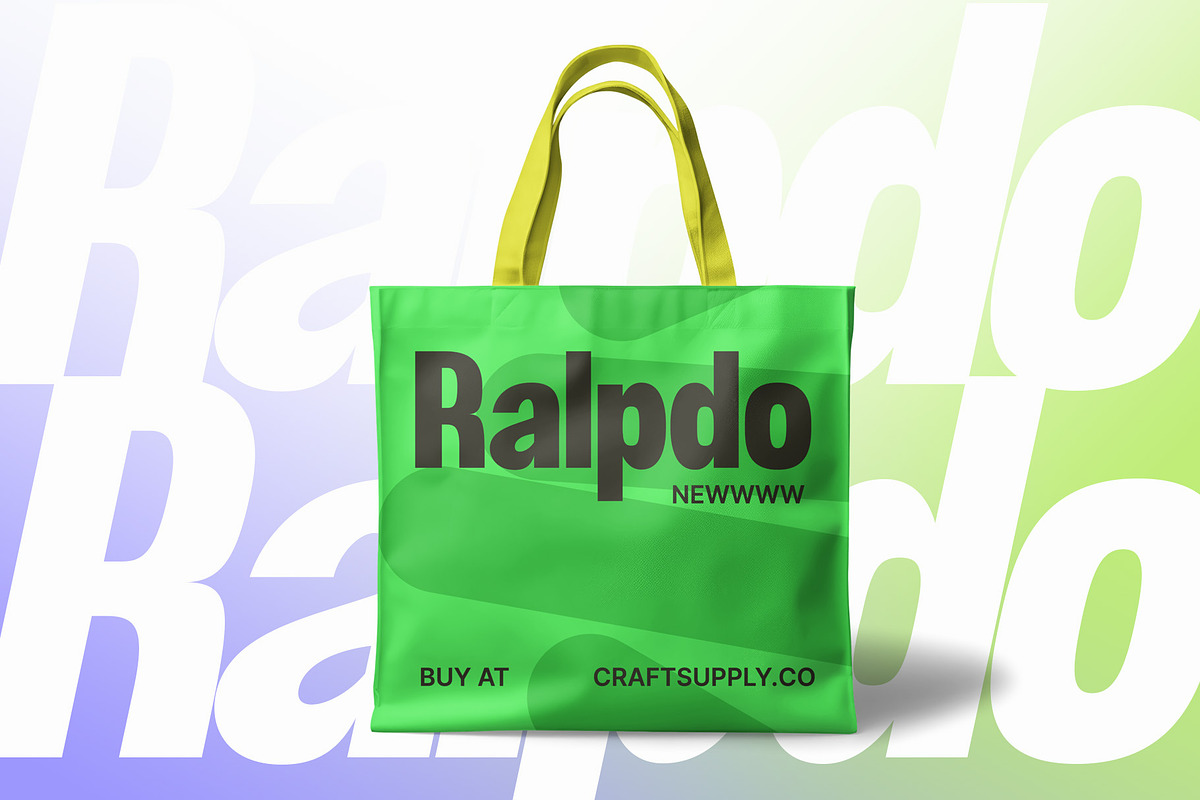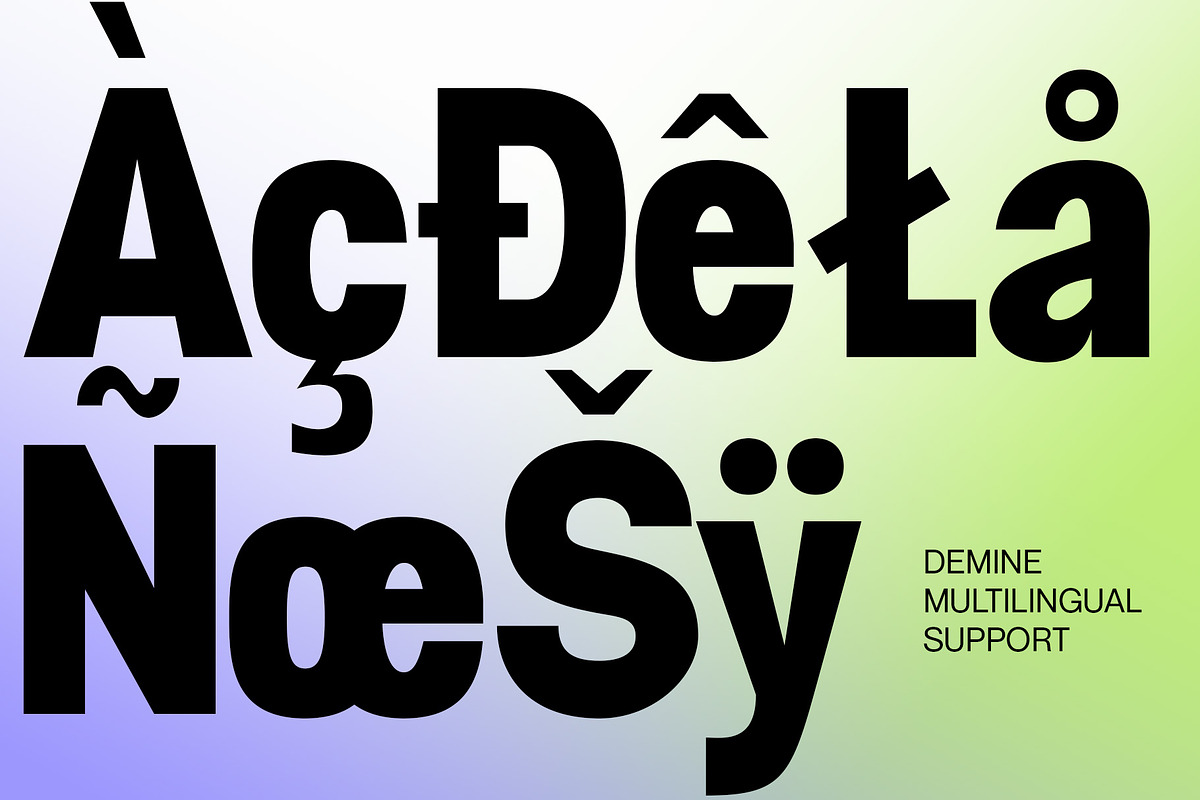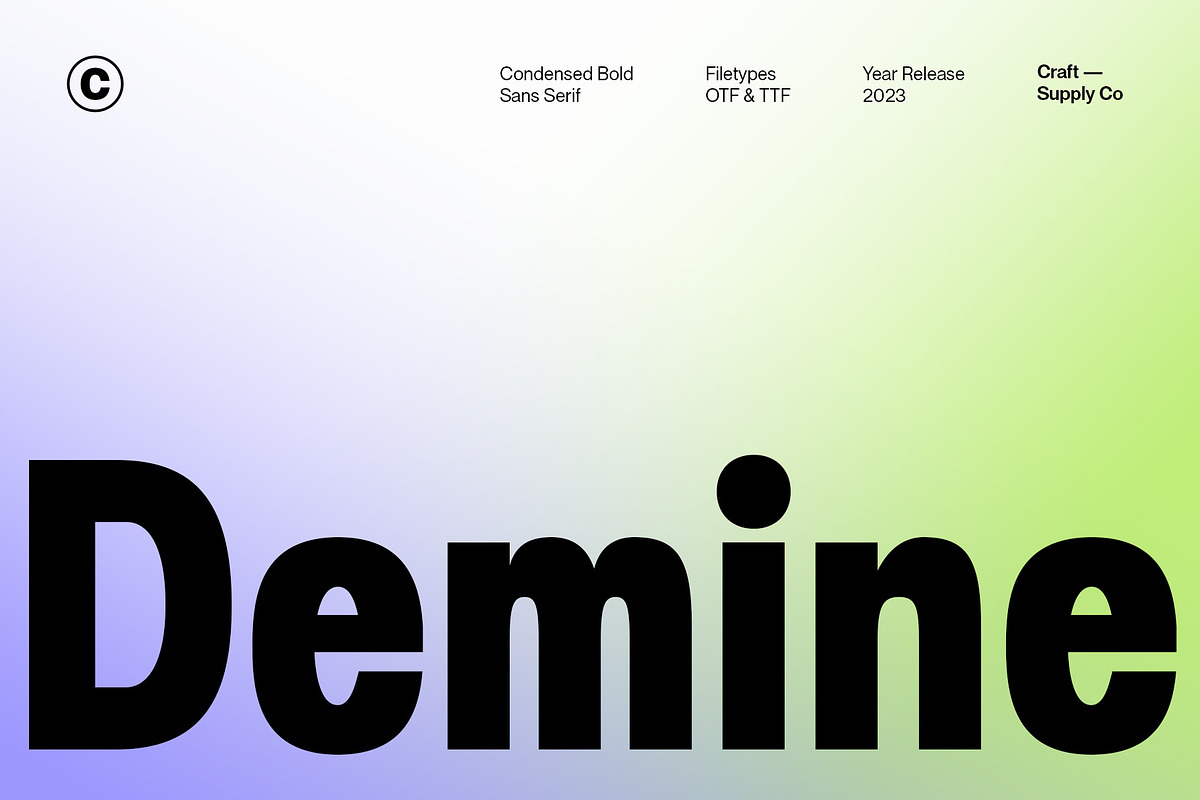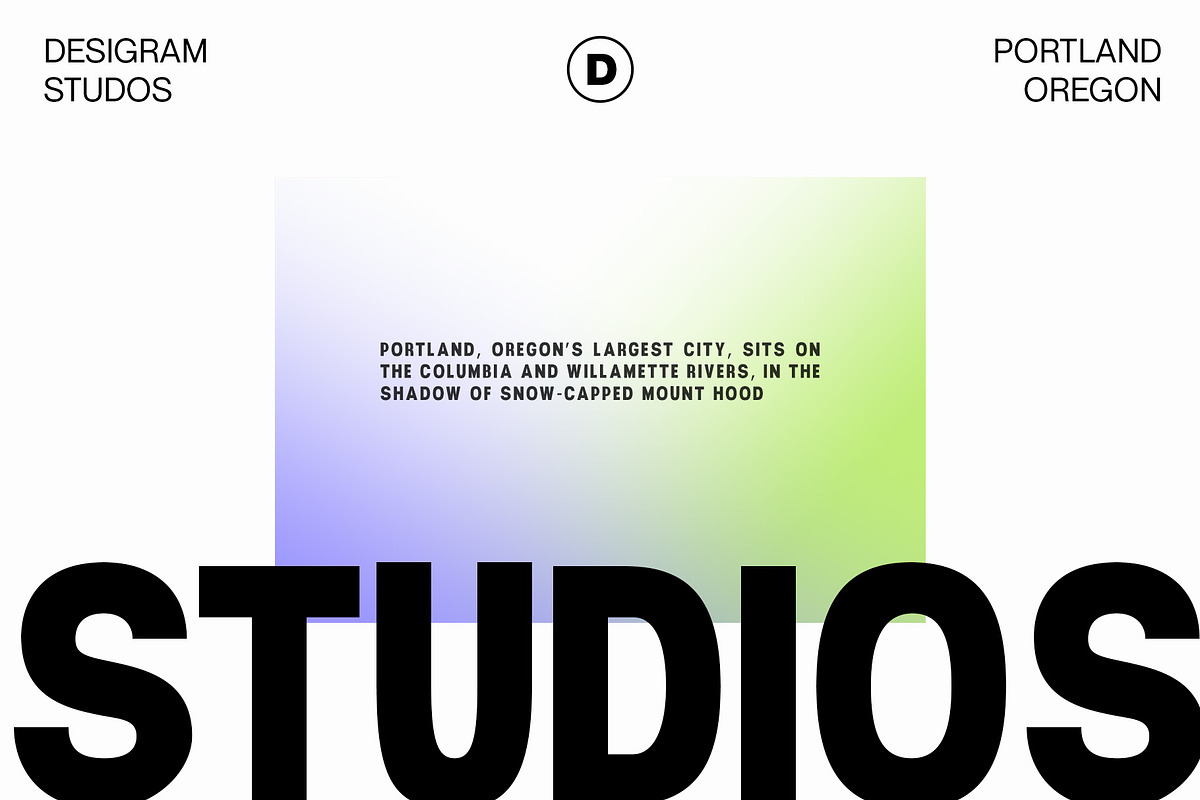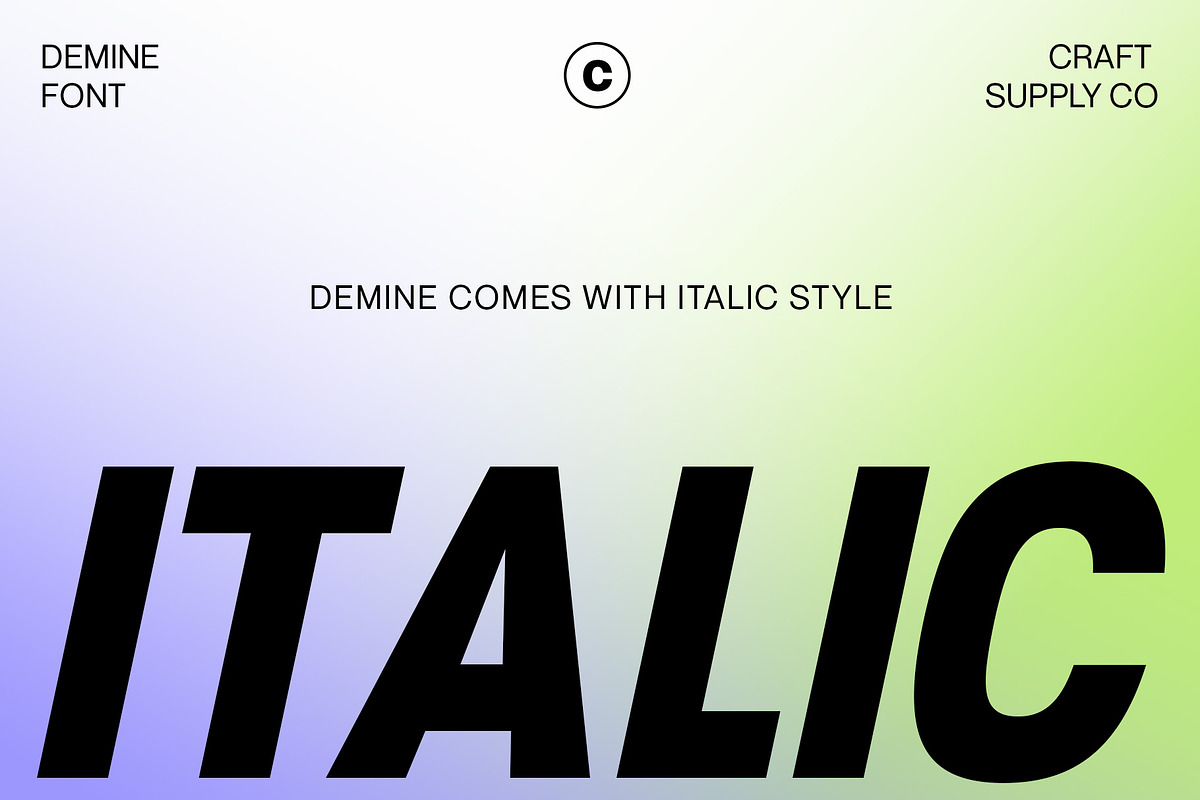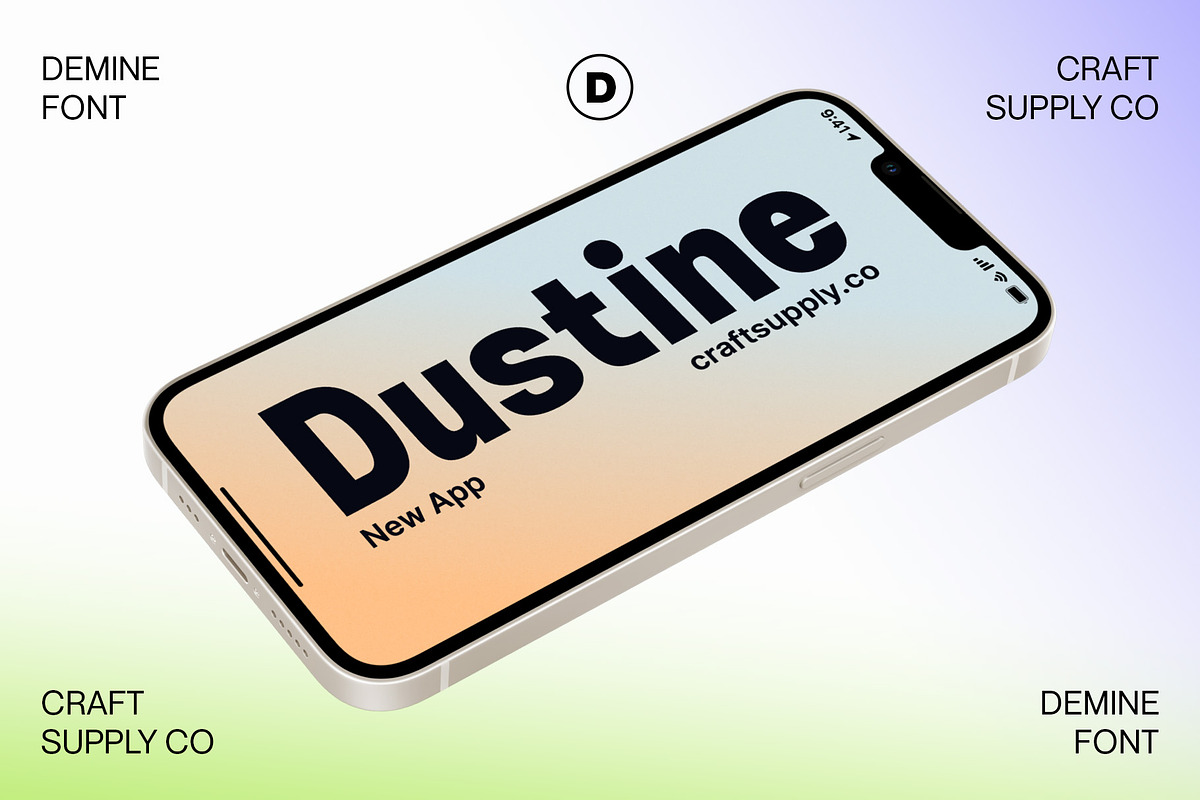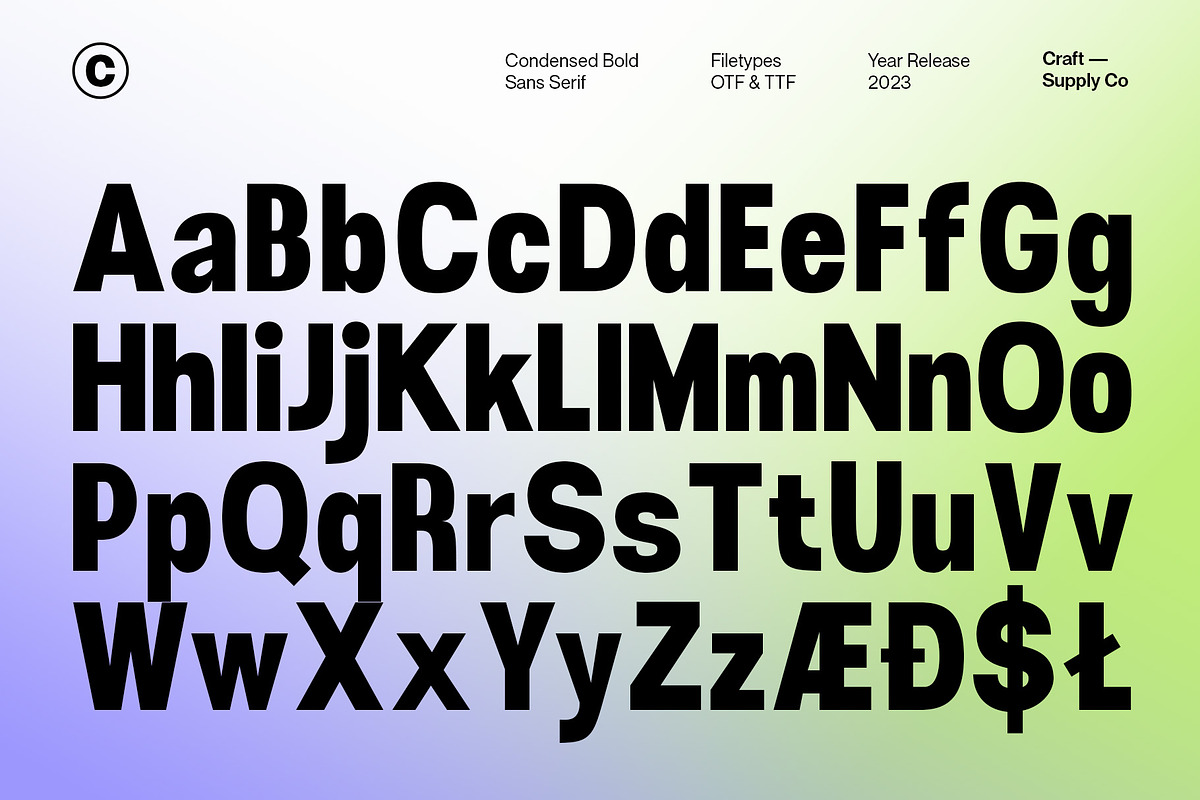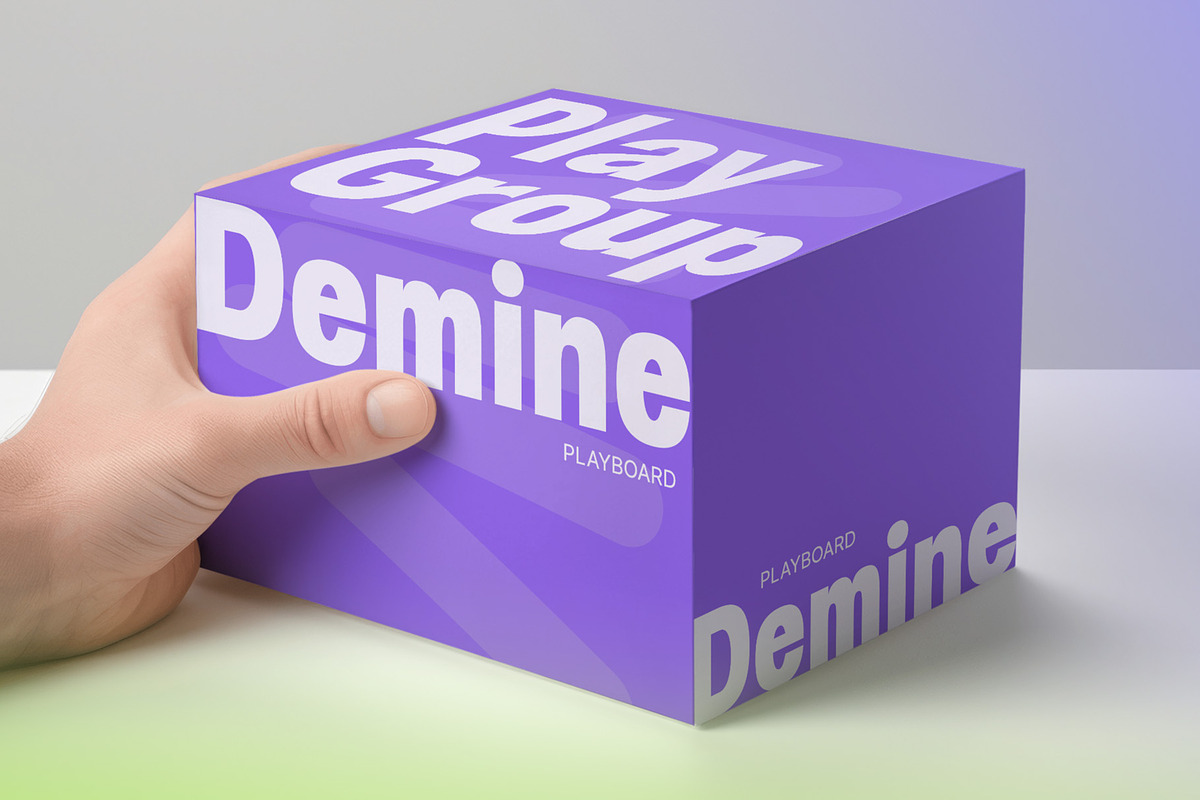
Demine – Condensed Bold Sans Serif
Introducing Demine – Condensed Bold Sans Serif Font
The Perfect Typeface for Large Displays
Demine – Condensed Bold Sans Serif Font is an ideal choice for meeting your large display typography needs. With its distinct features, this font stands out in the world of design.
Bold Impact for Attention
Demine’s bold design unquestionably captures attention. Whether it’s billboards, posters, or signage, this font excels in conveying a powerful message that can’t be ignored. Furthermore, it ensures that your content immediately seizes the viewer’s gaze.
Optimal Readability Even at Scale
Despite its condensed form, Demine prioritizes readability. Each character is thoughtfully crafted to remain clear and legible, ensuring your message is effectively communicated, even at larger sizes. Consequently, it guarantees that your audience can easily comprehend the content.
Versatile Design Applications
Demine’s versatility shines through in various design applications. It’s not limited to headlines; it also excels in branding, packaging, and any project where making a bold statement is essential. As a result, it can adapt to a wide range of creative endeavors.
In Conclusion
Demine – Condensed Bold Sans Serif Font epitomizes typography that marries boldness with clarity. When you need your message to shine large and clear, Demine is your go-to choice. Elevate your designs with Demine’s impactful presence, and witness your message soar to new heights, leaving an indelible impression on your audience.